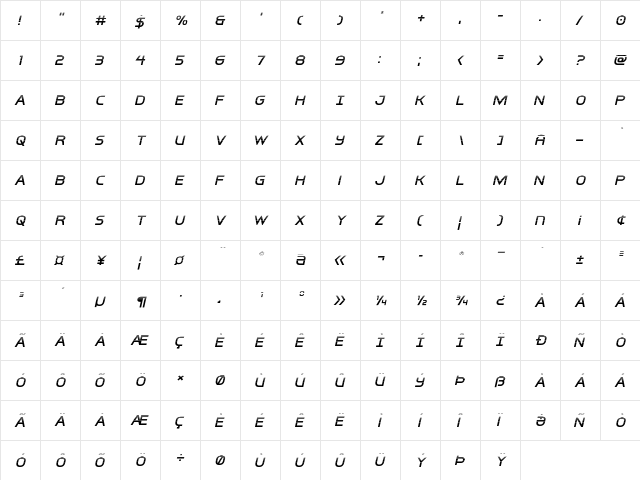
Inter-Bureau Halftone Italic Italic
Design Context for Inter-Bureau Halftone Italic Typeface
Inter-Bureau Halftone Italic offers clean, dependable letterforms without strong stylistic allegiance, making it a practical choice for designers who need flexibility. The dynamic lean of this cut emphasises speed and emphasis in any layout.
Pro Tip: Use Inter-Bureau Halftone Italic for emphasis, pull quotes, and subheadings where its slanted energy can add rhythm to the layout.